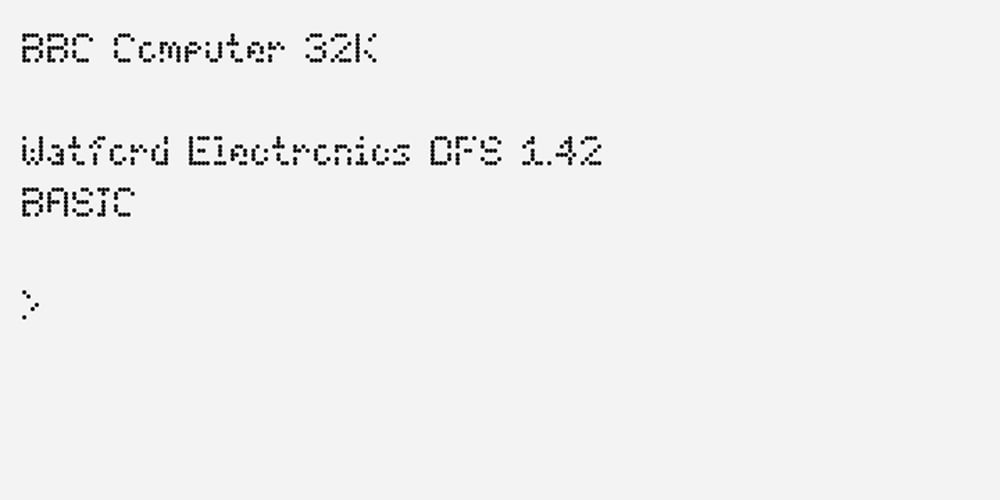
FM Pointifax
FM Pointifax font
FM Pointifax Font Family was designed by Elwin Berlips and published by FontMeister. FM Pointifax contains 6 styles and family package options. The POINTIFAX family is a typographic flashback to computing of the early 1980s. POINTIFAX is based on a matrix of dots and looks like the output on an old computer screen. Each is built out of dots, horizontal and vertical lines.